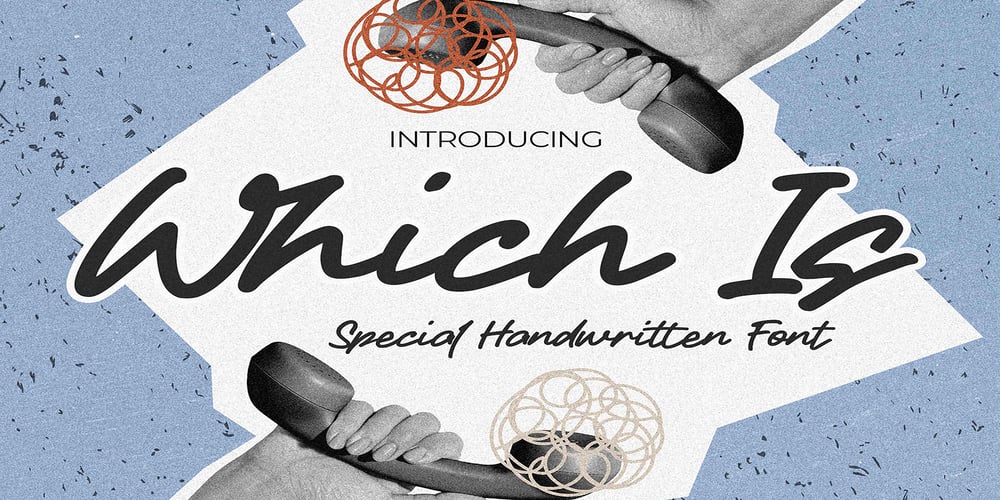
Which Is
Which Is font
Which Is Font Family was designed by Abdul Malik Wisnu, Anang Fibriyanto and published by Gassstype. Which Is contains 1 styles and family package options. Hello Everyone, introduce our new product Font Which Is it is Special Handwritten Font.This is a Textured Natural Style and classy style with a clear style and dramatic movement.This font Which Is is great for your next creative project such as logos, printed quotes, invitations, cards, product packaging, headers, Logotype, Letterhead, Poster.You can activate 18 Ligatures glyphs OpenType panel.